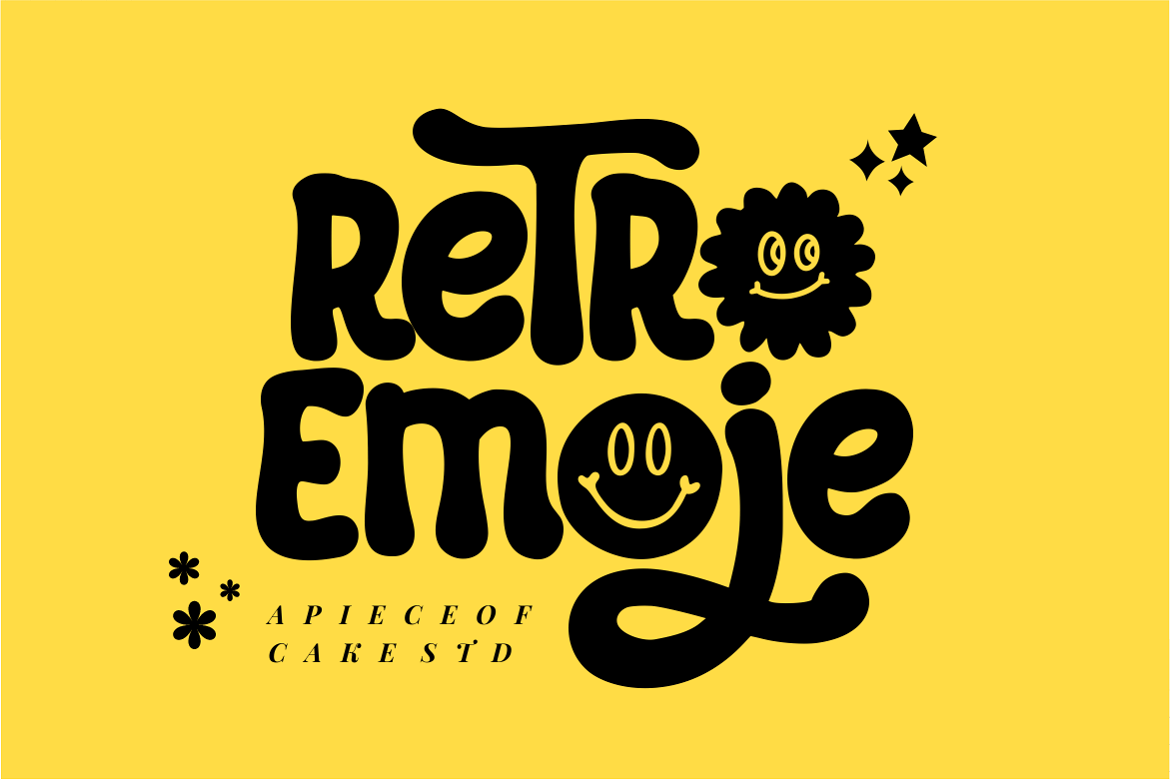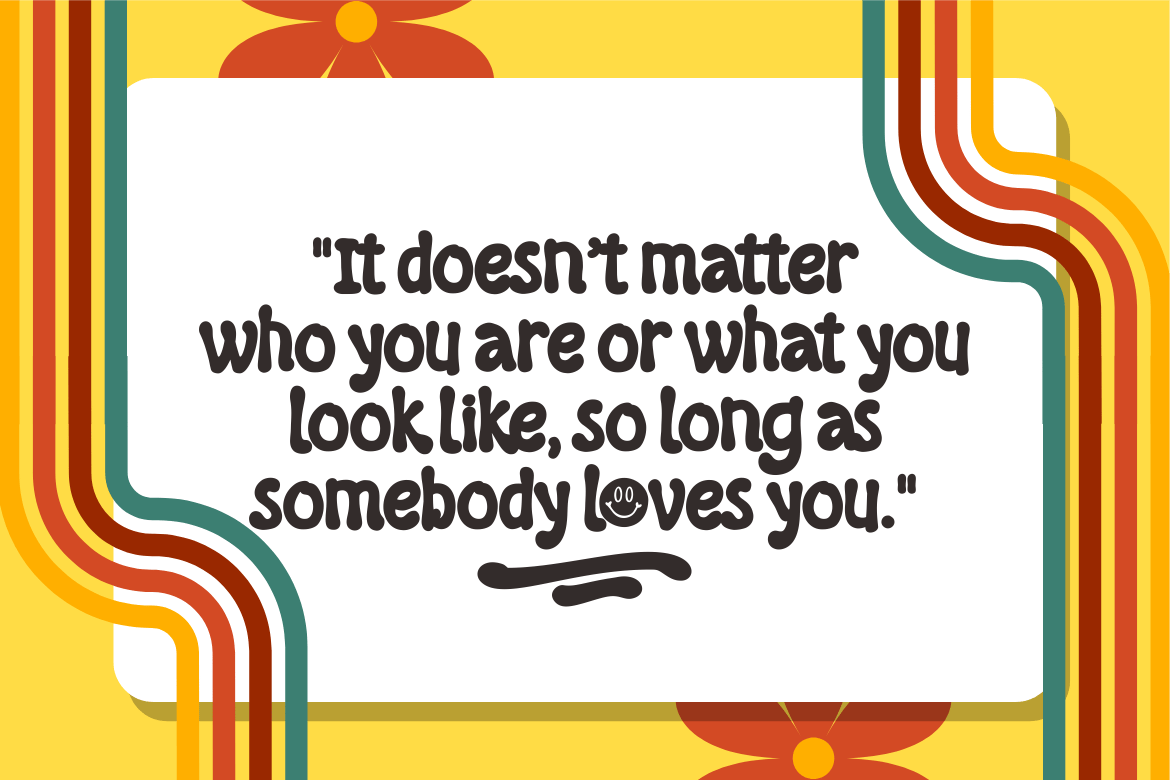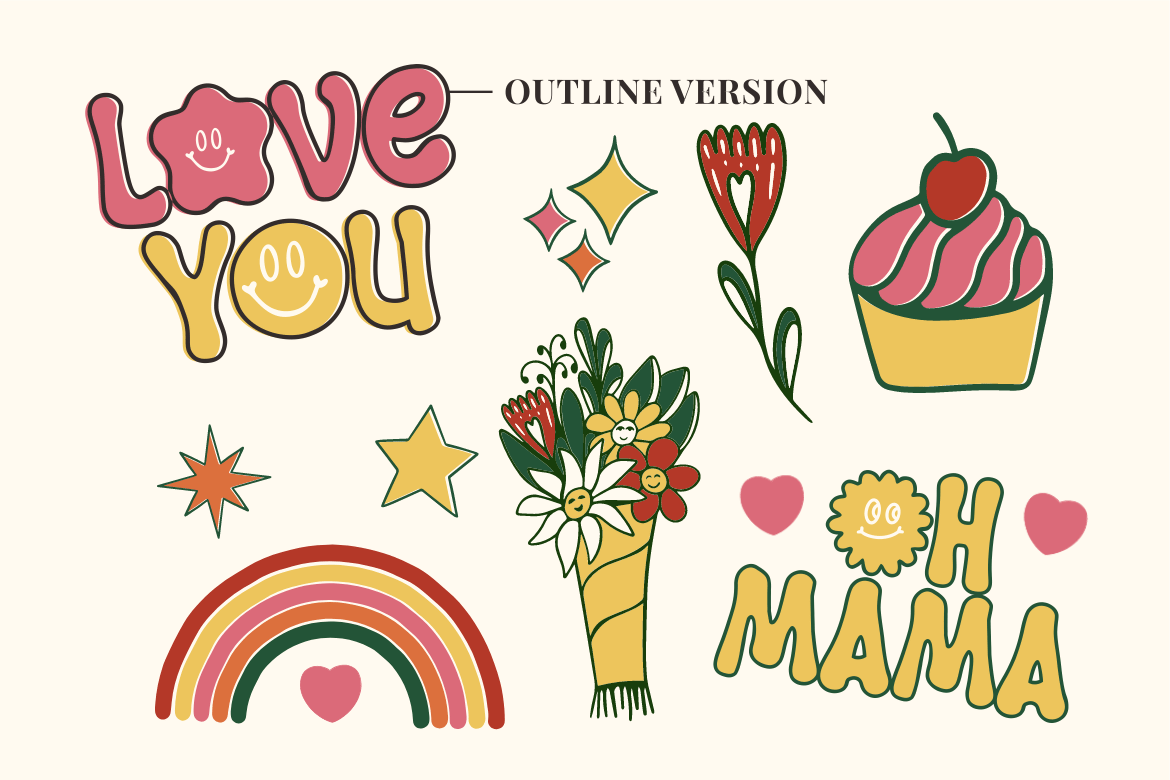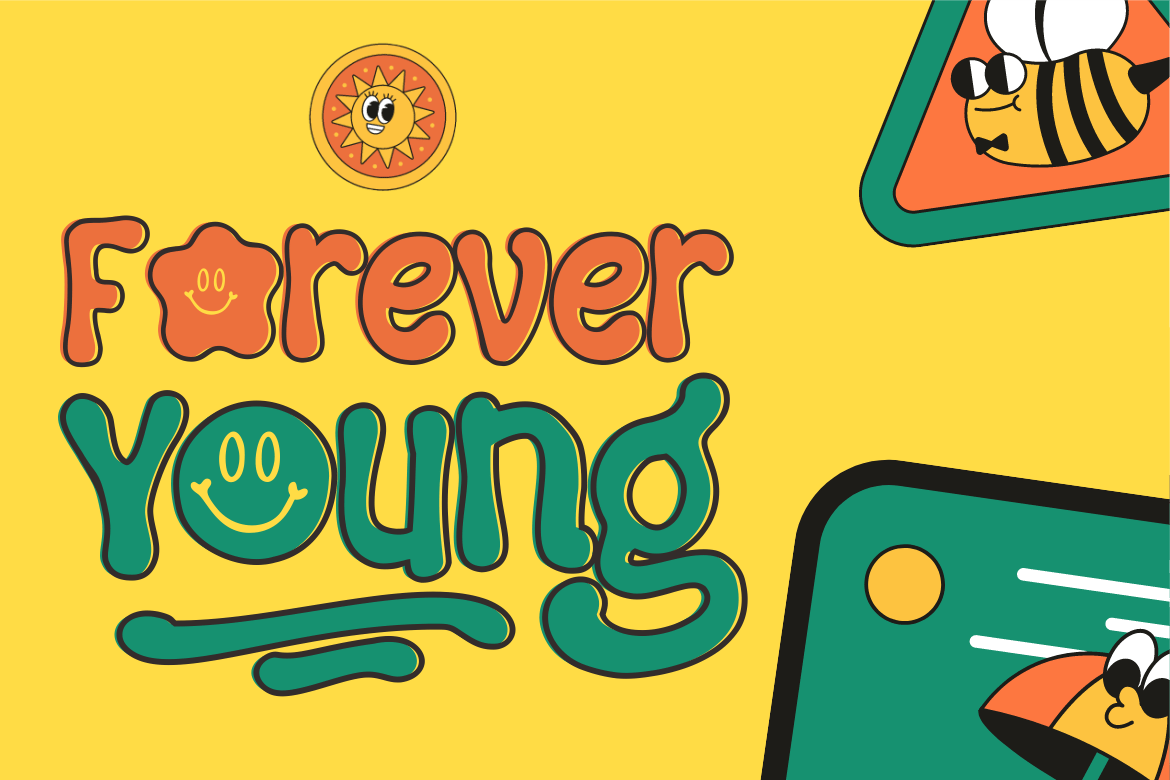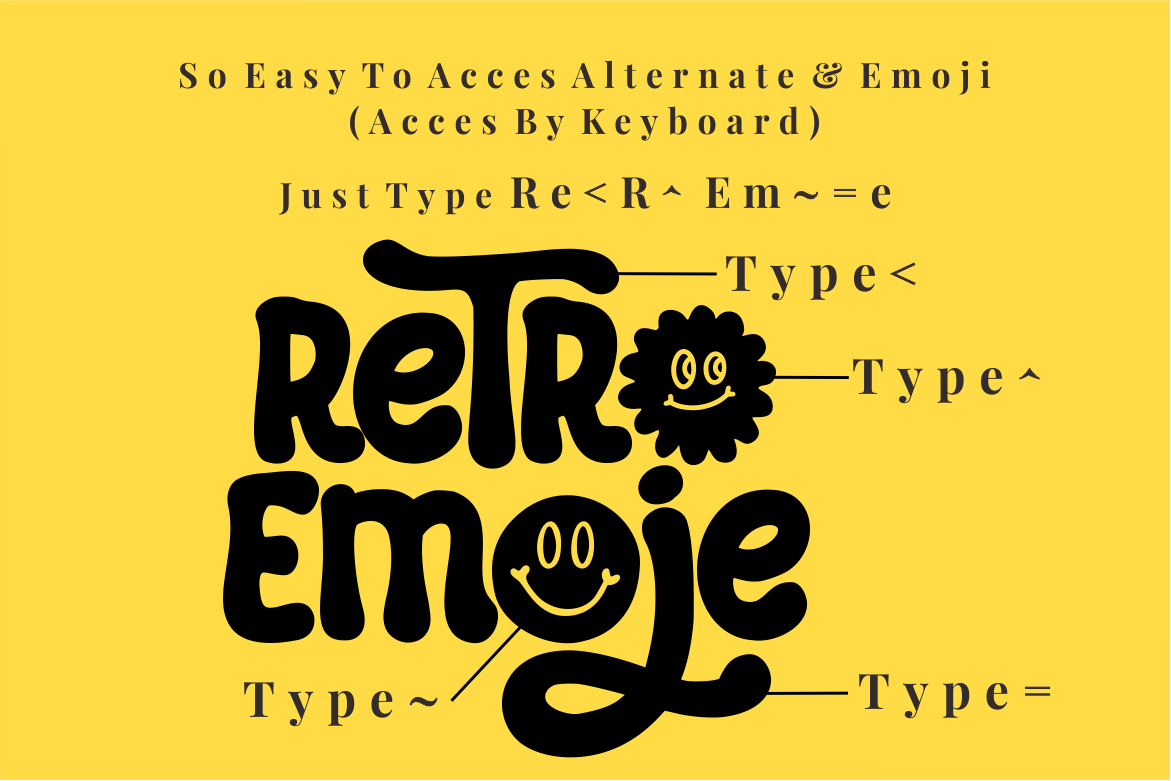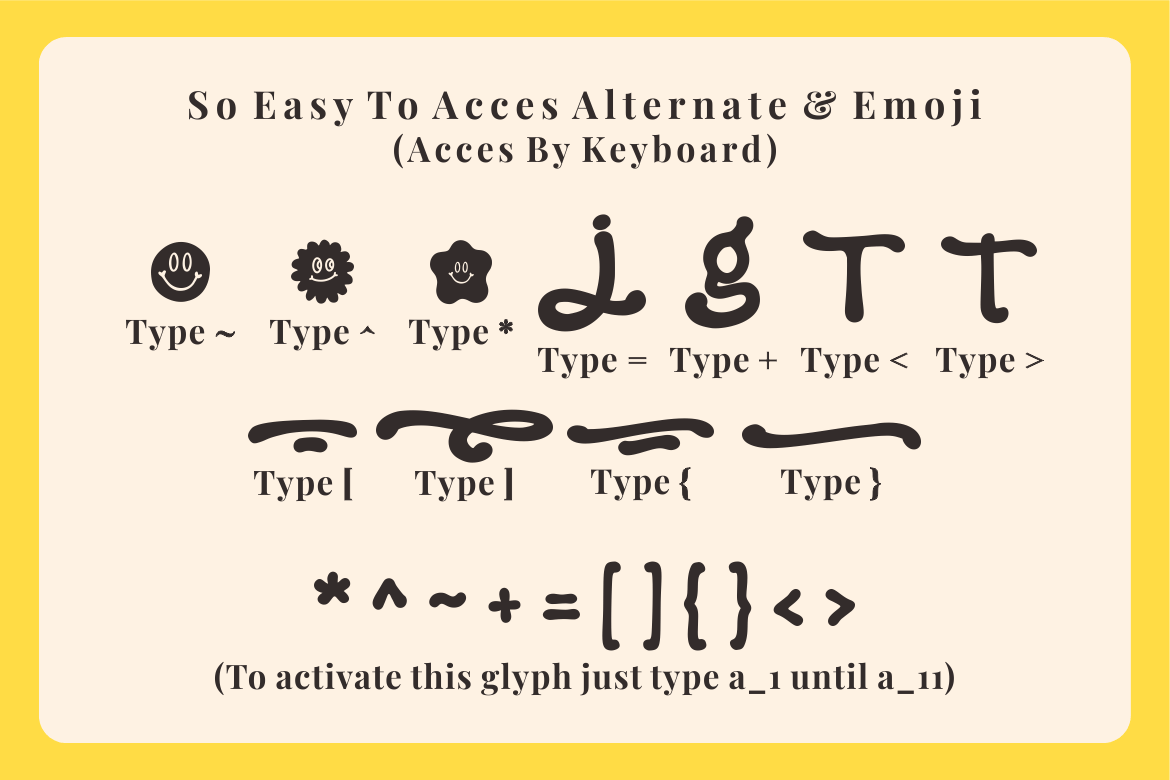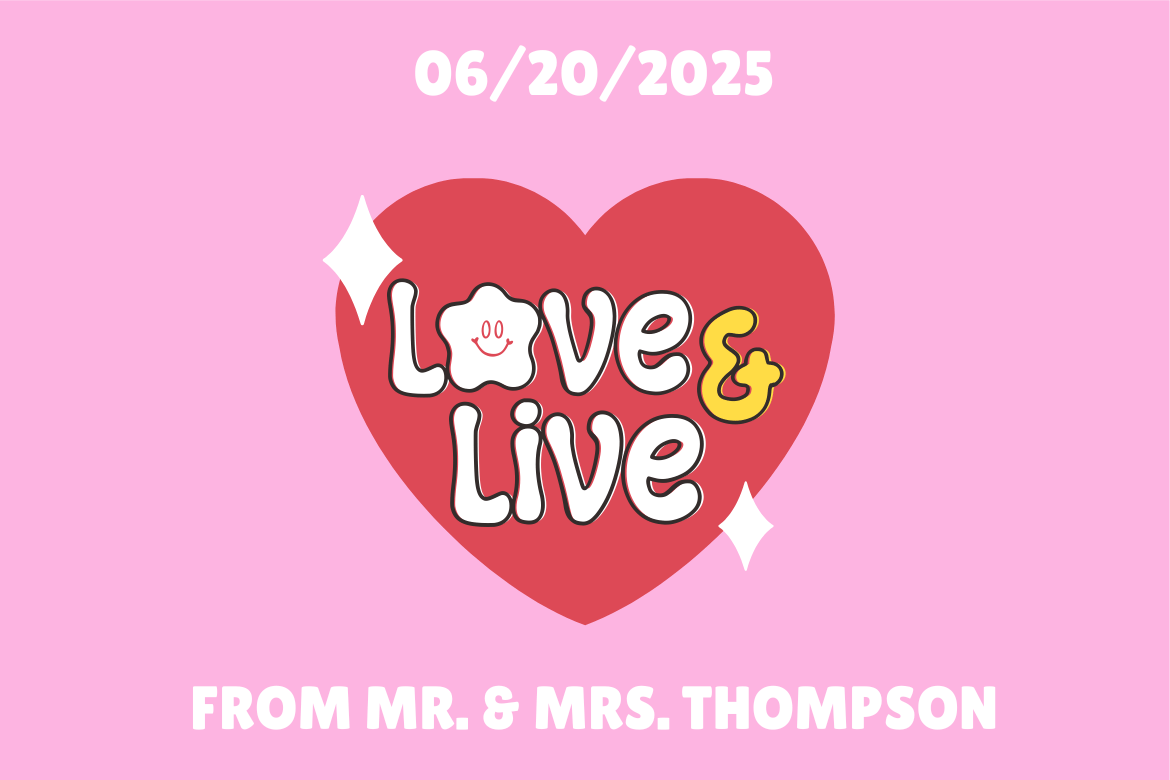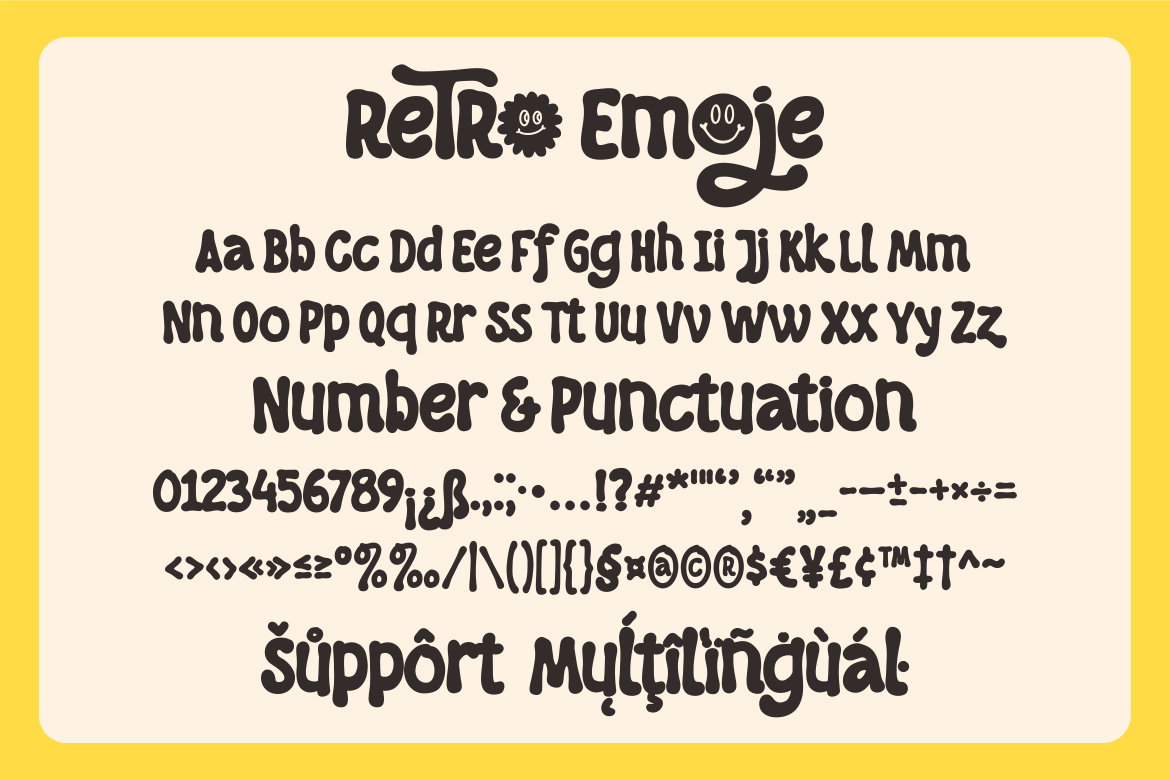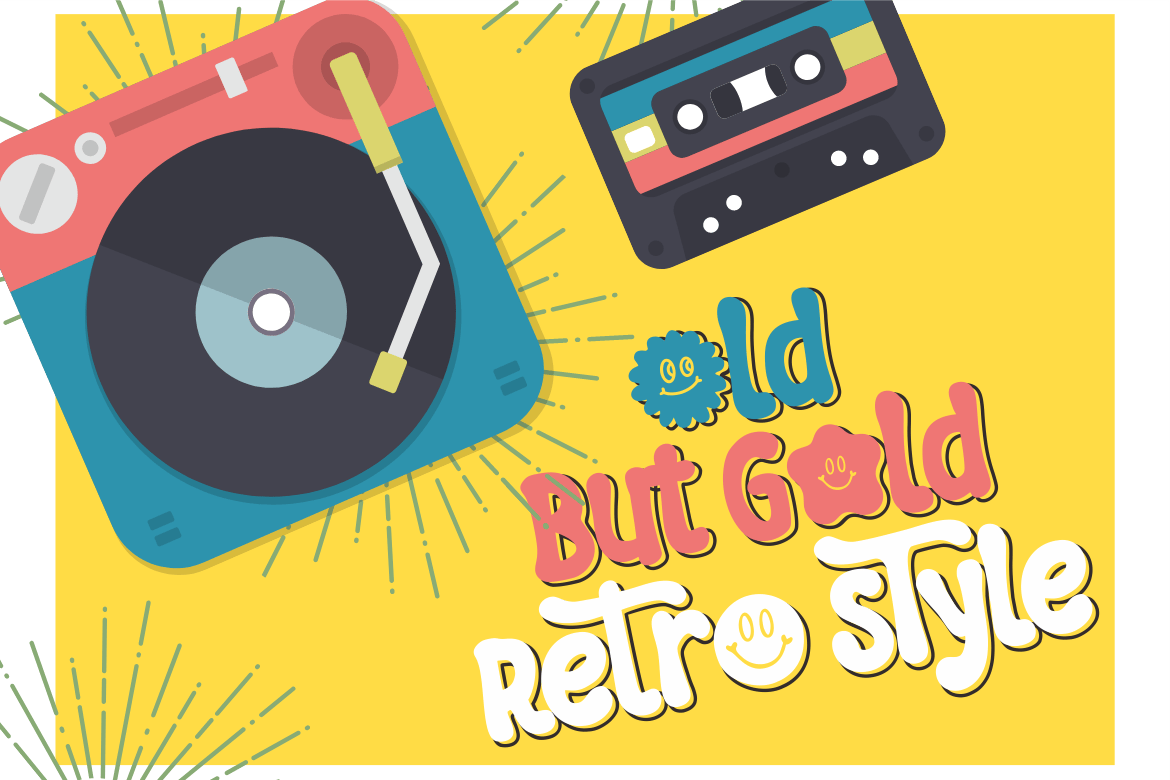
Retro Emoje – A Playful Groovy Font
Introducing, Retro Emoje is a playful groovy font suitable for your design project needs, such as; retro themes, social media posts, quotes, overlays on images, tagline logos, posters, print needs, website banners, and more.
- A set of uppercase and lowercase glyphs
- Number, symbol, and punctuation
- Some Alternates and Dingbats
- Outline Version